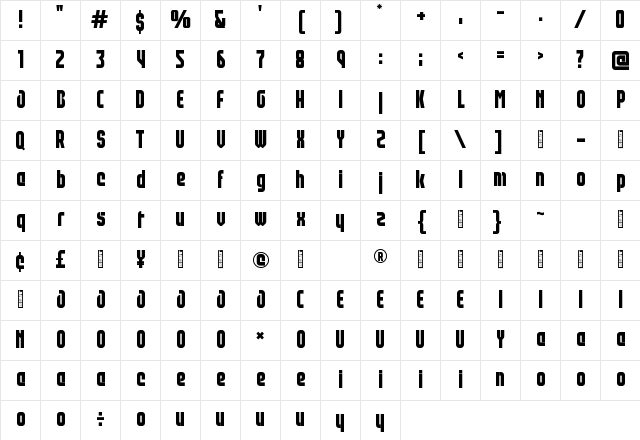
Ace Nova Personal Use Regular Free Font
Ace Nova Personal Use Regular
Foundry: Lettercorner Studio
Designer: Muhammad Afif Ersya
Complete Ace Nova Personal Use Regular glyph index. Displaying only characters natively supported by Ace Nova Personal Use Regular font.
Design Context for Ace Nova Personal Use
Ace Nova Personal Use is a composed and adaptable typeface that performs quietly and consistently across a wide range of design contexts.
Who designed the Ace Nova Personal Use Regular font?